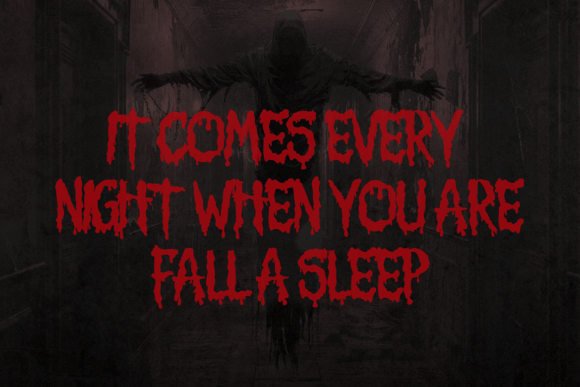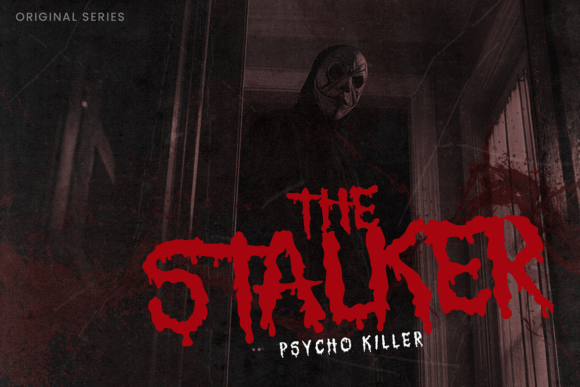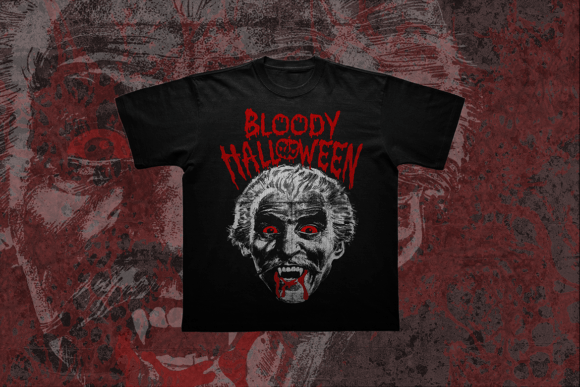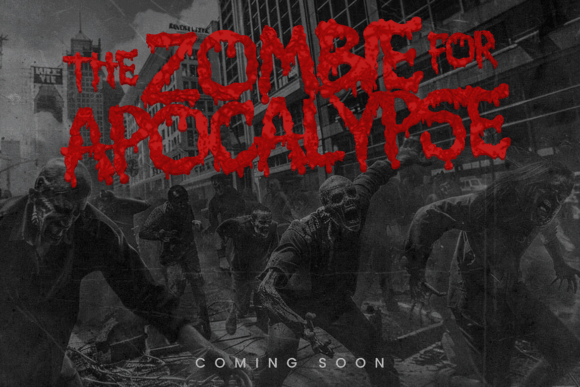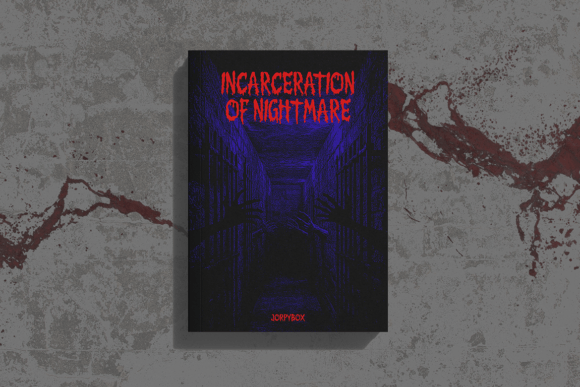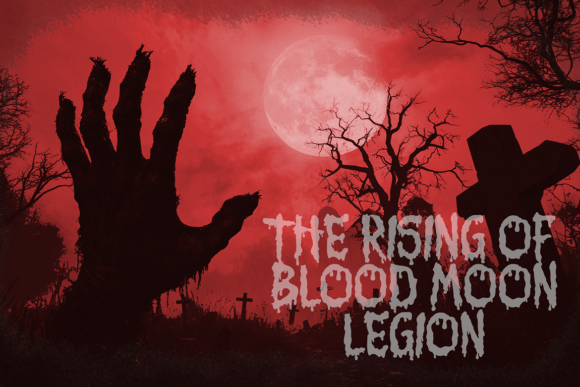
Introducing Bloodie Font: The Ultimate Horror-Inspired Typeface for Halloween
As the spookiest time of the year approaches, designers and crafters are on the lookout for the perfect font to bring their Halloween projects to life. Look no further than Bloodie Font, a chilling, Halloween-inspired typeface that captures the essence of horror. With its dripping edges and jagged contours, Bloodie evokes the look of melted blood drops, making it perfect for creating spooky designs that will leave a lasting impression.
The Inspiration Behind Bloodie Font
Bloodie Font is designed to evoke the eerie and suspenseful atmosphere of Halloween. The font’s creator drew inspiration from the classic horror movies, haunted houses, and creepy crawlies that define the holiday. The result is a typeface that is both terrifying and mesmerizing, with a unique blend of sharp edges and smooth curves that will add a touch of macabre to any design.
Key Features of Bloodie Font
So, what makes Bloodie Font so special? Here are just a few of its key features:
• Dripping Edges: The edges of Bloodie Font are designed to look like they’re dripping with blood, adding a sense of realism and horror to any design.
• Jagged Contours: The font’s jagged contours give it a rough, uneven texture that’s perfect for creating spooky and unsettling designs.
• Rich Reds: Bloodie Font features a range of rich, bold reds that evoke the color of blood and add to the overall sense of horror.
• Glossy Texture: The font’s glossy texture gives it a sense of depth and dimensionality, making it perfect for creating eye-catching designs.
Uses for Bloodie Font
Bloodie Font is perfect for a wide range of Halloween-themed designs, including:
• Posters: Create eye-catching posters for Halloween parties, haunted houses, or horror movie screenings.
• Merchandise: Use Bloodie Font to create spooky merchandise, such as t-shirts, mugs, or phone cases.
• Social Media Graphics: Add a touch of horror to your social media graphics, including Facebook posts, Instagram stories, and Twitter headers.
• Invitations: Create spooky invitations for Halloween parties or events.
Tips for Using Bloodie Font
Here are a few tips for getting the most out of Bloodie Font:
• Experiment with Colors: While Bloodie Font looks great in its default red color, don’t be afraid to experiment with other colors to create a unique look.
• Mix and Match: Combine Bloodie Font with other fonts or graphics to create a truly eye-catching design.
• Keep it Simple: Don’t overcomplicate your design – sometimes, less is more. Let Bloodie Font speak for itself and make a bold statement.
Bloodie Font is the perfect addition to any Halloween design project. With its chilling, horror-inspired aesthetic and versatile uses, it’s sure to bring a touch of spookiness to your designs. Whether you’re a designer, crafter, or simply a horror fan, Bloodie Font is a must-have for the Halloween season. So why wait? Download Bloodie Font today and start creating your own terrifying designs!